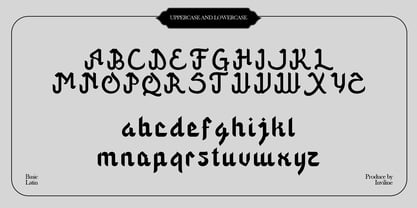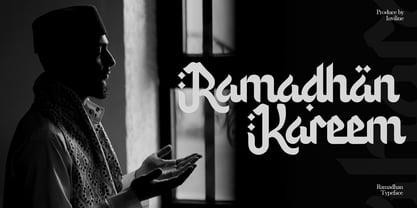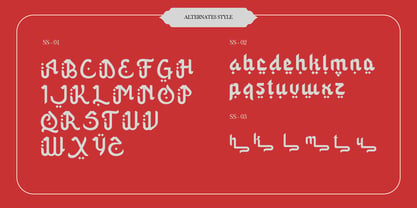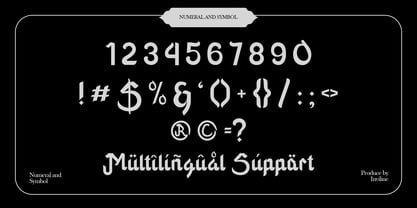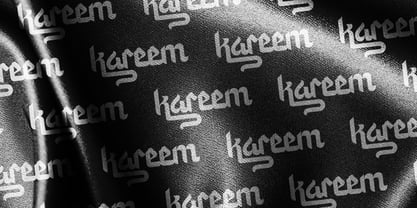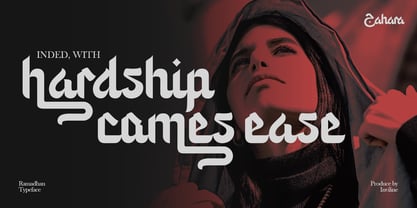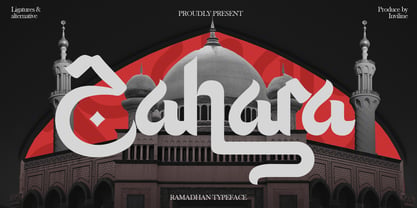
Zahara
The Zahara Font Family was designed by Virgiawan Listanto and published by Inviline. Zahara contains 1 styles. More about this family
Introducing a stunning Arabic decorative font! Intricate details and elegant flourishes perfect for logos, branding, wedding invitations, and more. Download now and elevate your designs!
• Uppercase & Lowercase Characters: Fully designed for a complete typographic experience
• Numerals & Punctuation: All the numbers and punctuation marks you need for any design task
• Multilingual Support: Includes characters for multiple languages, ensuring global usability
Features:
• High-Quality Design: Each font is crafted with attention to detail, ensuring a polished and professional look